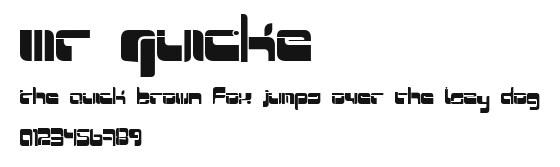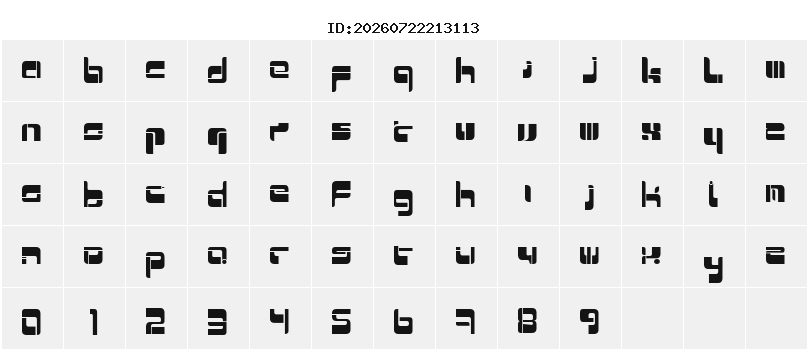
• Font Name: Mr Quicke
• Full Font Name: Mr Quicke
About Mr Quicke.ttf
Mr Quicke.ttf is a modern, elegant sans-serif font designed for ultimate readability and visual harmony. Perfect for branding, headlines, web design, and print materials.